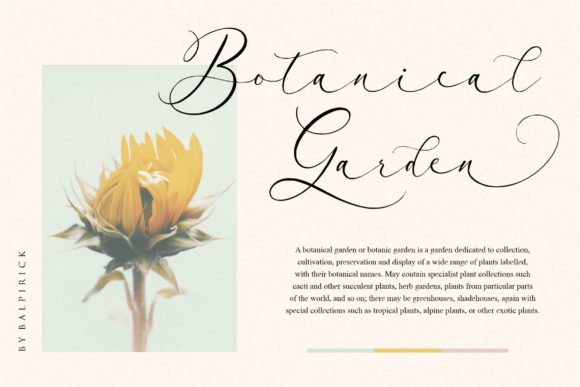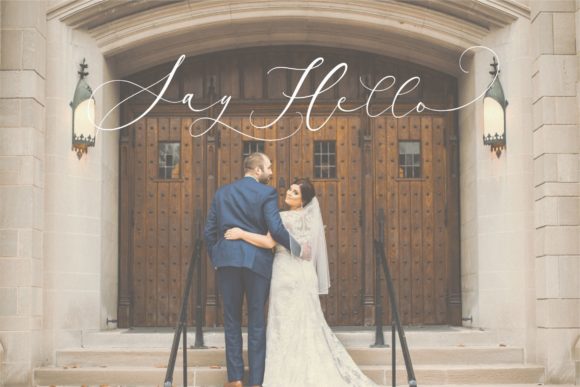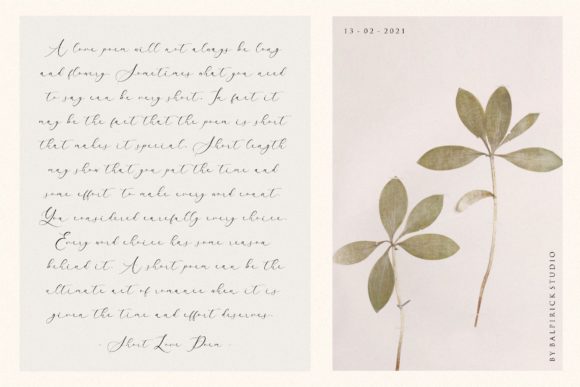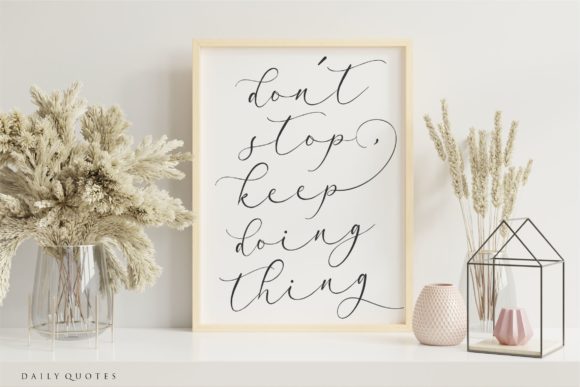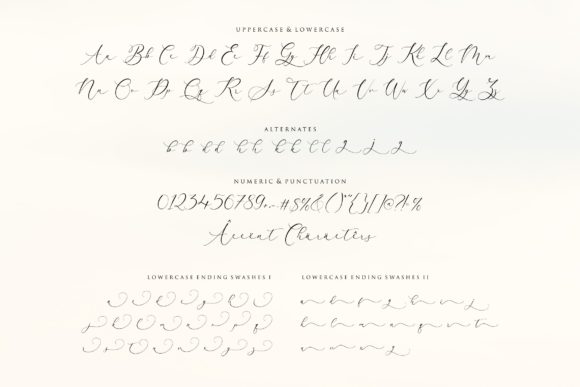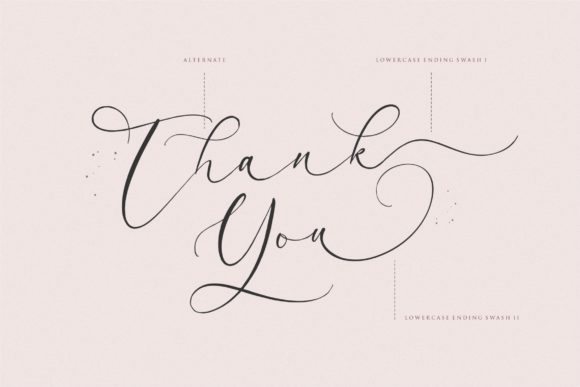
Discover the Beauty of Arletta Font: A Timeless Handwritten Script
Are you looking for a font that can add a touch of elegance and sophistication to your designs? Look no further than Arletta Font, a lovely and timeless handwritten script that is perfect for creating eye-catching logos, branding, and quotes. In this article, we’ll take a closer look at the features and benefits of Arletta Font, and explore how it can elevate your design projects.
What is Arletta Font?
Arletta Font is a beautifully crafted handwritten font that exudes a sense of warmth and personality. Its unique and flowing script makes it perfect for designs that require a touch of elegance and sophistication. Whether you’re creating a logo, branding materials, or social media graphics, Arletta Font is sure to make your design stand out.
Key Features of Arletta Font
- Unique and Beautiful Touch: Every letter in Arletta Font has a unique and beautiful touch, which will make your design come alive. The font’s handwritten script is full of character and personality, making it perfect for designs that require a personal touch.
- PUA Encoded: Arletta Font is PUA (Private Use Area) encoded, which means you can access all of the glyphs and swashes with ease. This makes it easy to customize your designs and add your own personal touch.
- Elegant and Sophisticated: Arletta Font has an elegant and sophisticated feel that makes it perfect for designs that require a touch of luxury and refinement. Whether you’re creating branding materials or packaging, Arletta Font is sure to impress.
Why Choose Arletta Font?
So why choose Arletta Font for your design projects? Here are just a few reasons:
- Versatility: Arletta Font is a versatile font that can be used for a wide range of design projects, from logos and branding to social media graphics and packaging.
- Ease of Use: Arletta Font is easy to use and customize, thanks to its PUA encoding. This means you can access all of the glyphs and swashes with ease, and add your own personal touch to your designs.
- Unique and Memorable: Arletta Font is a unique and memorable font that will help your designs stand out from the crowd. Its elegant and sophisticated feel makes it perfect for designs that require a touch of luxury and refinement.
- Pair it with Other Fonts: Arletta Font pairs well with other fonts, making it easy to create unique and interesting combinations. Try pairing it with a bold sans-serif font for a striking contrast.
- Use it for Headlines and Titles: Arletta Font is perfect for headlines and titles, thanks to its elegant and sophisticated feel. Use it to add a touch of luxury and refinement to your designs.
Arletta Font is a beautiful and timeless handwritten script that is perfect for designers and crafters looking to add a touch of elegance and sophistication to their designs. With its unique and beautiful touch, PUA encoding, and elegant feel, Arletta Font is sure to make your designs stand out. Whether you’re creating logos, branding materials, or social media graphics, Arletta Font is a great choice. So why not give it a try and see the difference it can make in your designs?
- Is Arletta Font easy to read?: Yes, Arletta Font is a clear and readable font, making it perfect for designs that require a touch of elegance and sophistication.